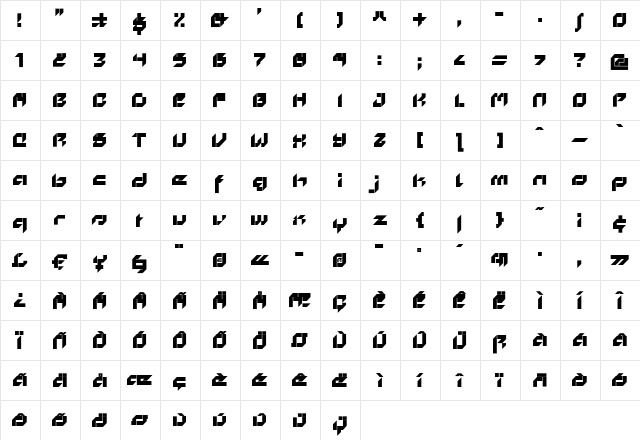
Cyberwar Regular
Design Context for Cyberwar Typeface
Cyberwar channels digital-age aesthetics through its sharp, structured letterforms — ideal for brands that want to signal innovation.